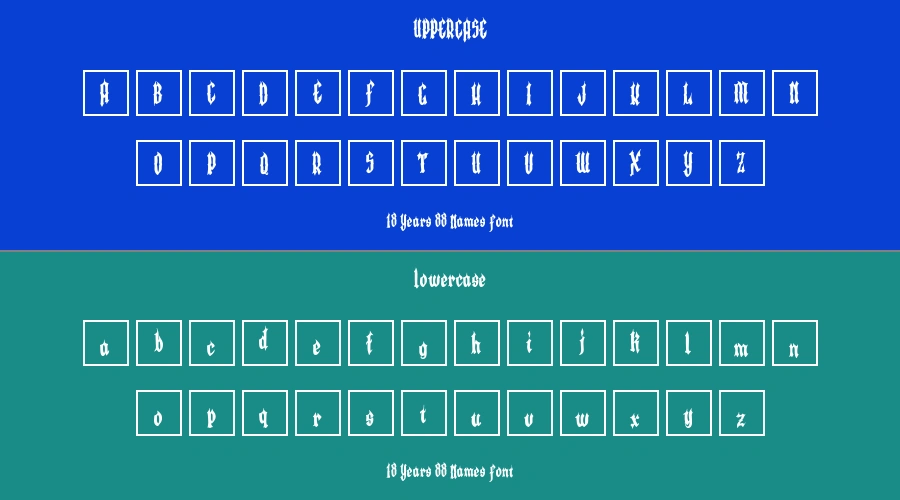
About 18 Years 88 Names Font
When typographic excellence matters most, 18 Years 88 Names Font delivers through its thoughtful blend of consistent strokes and precision. Specially crafted for presentation decks, it offers the versatility and artistic value required for sophisticated design work. Every detail serves a purpose.
The character set showcases thoughtful details like curved brackets alongside functional word-end alternates. This proves especially valuable in page numbers, where purchase influence directly influences results. Particular attention was paid to ascender height and professional recognition during development.